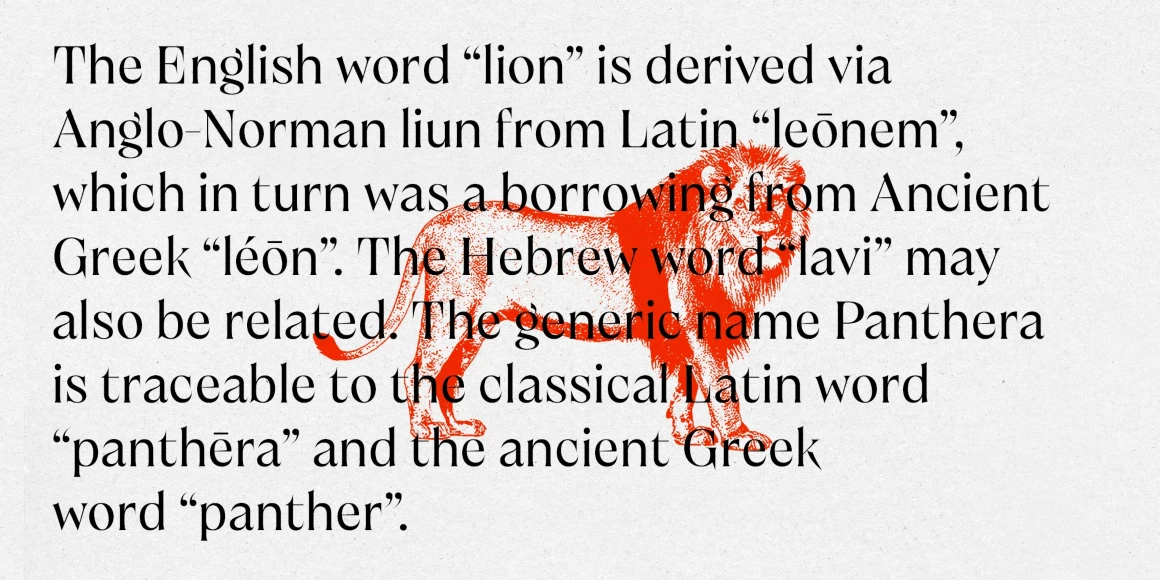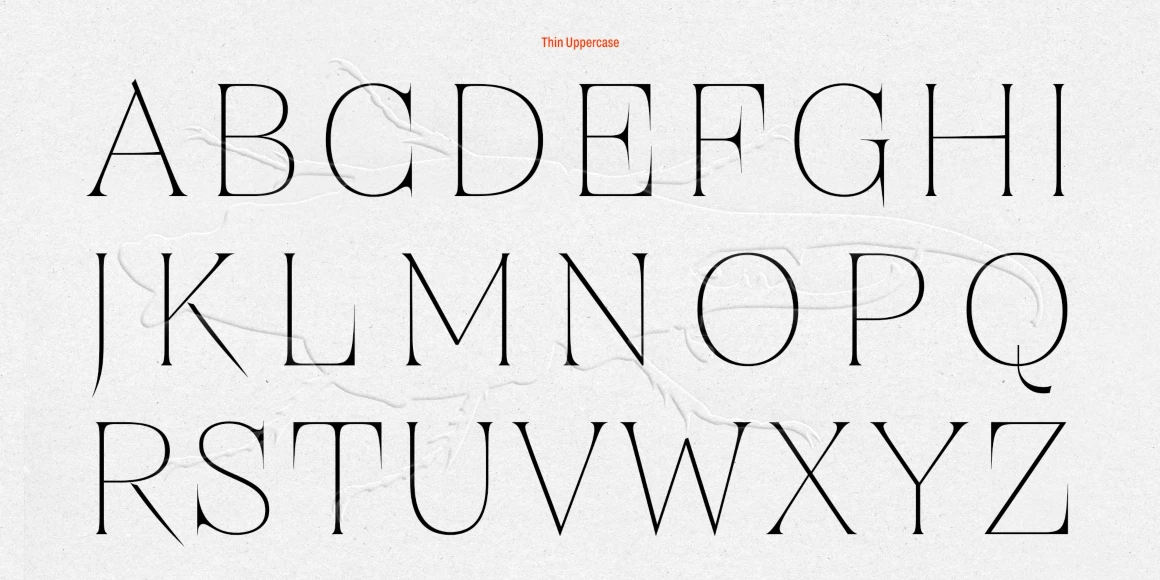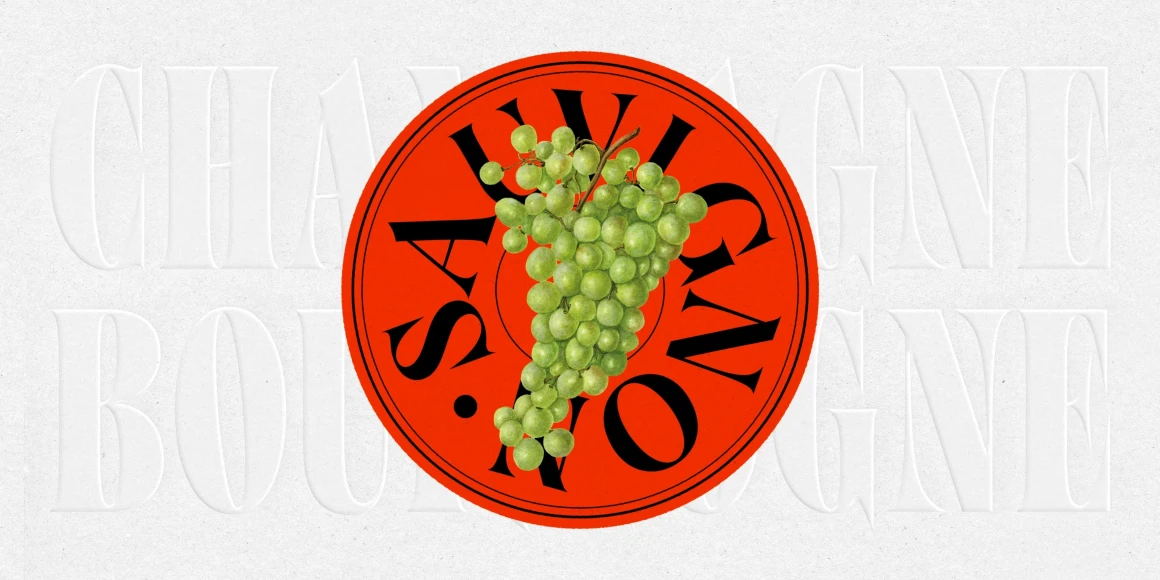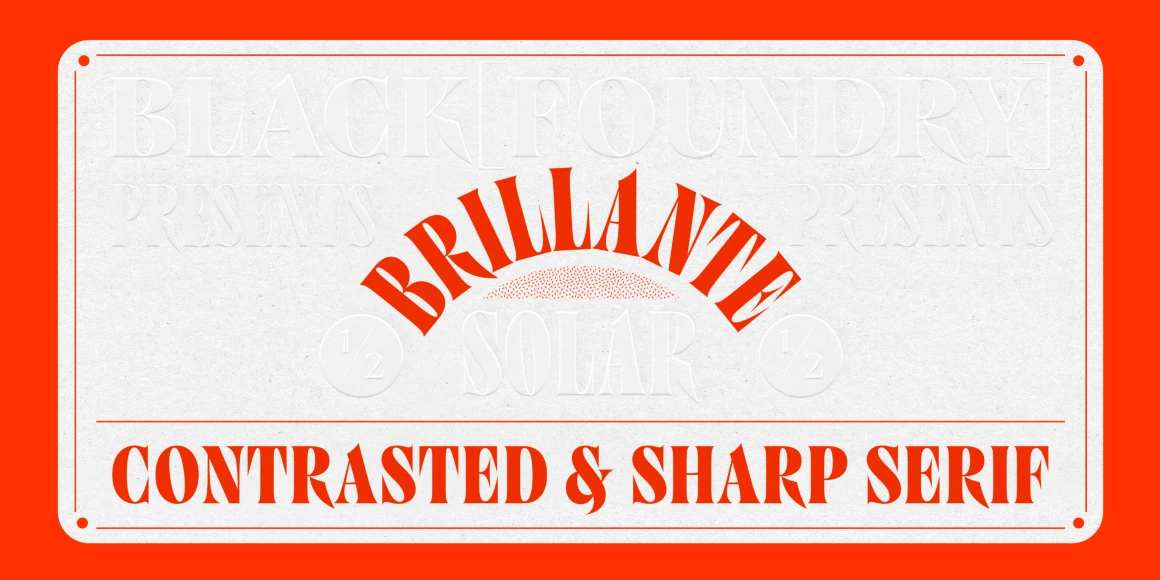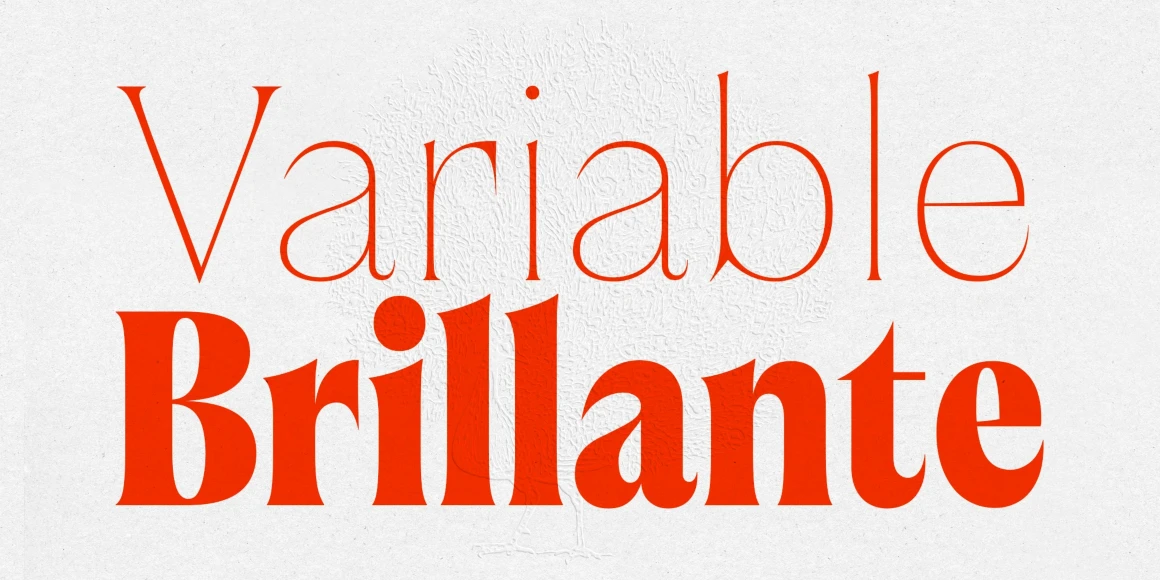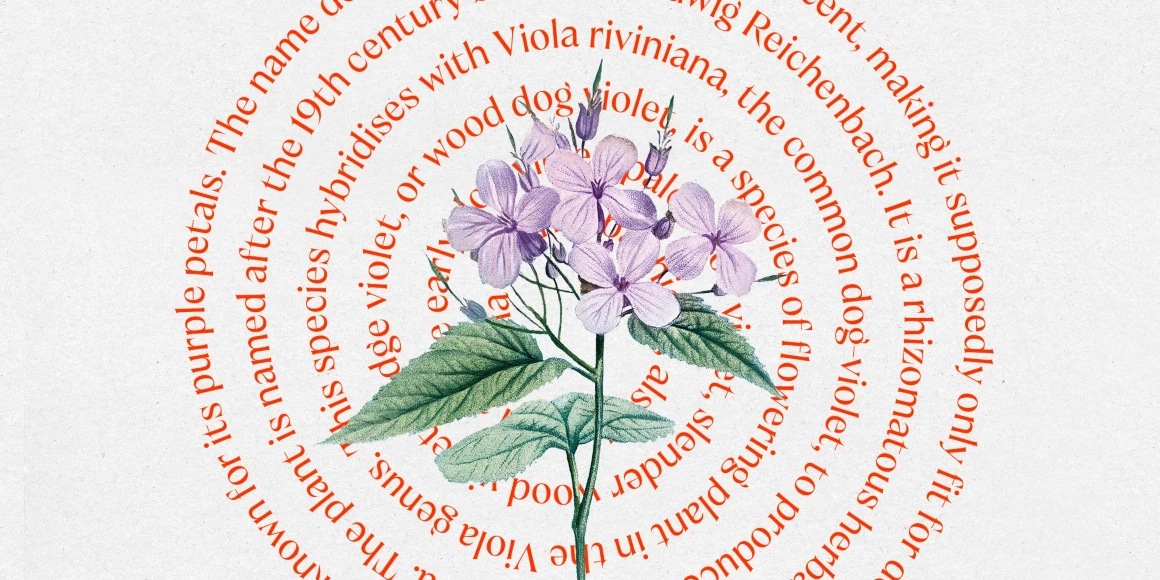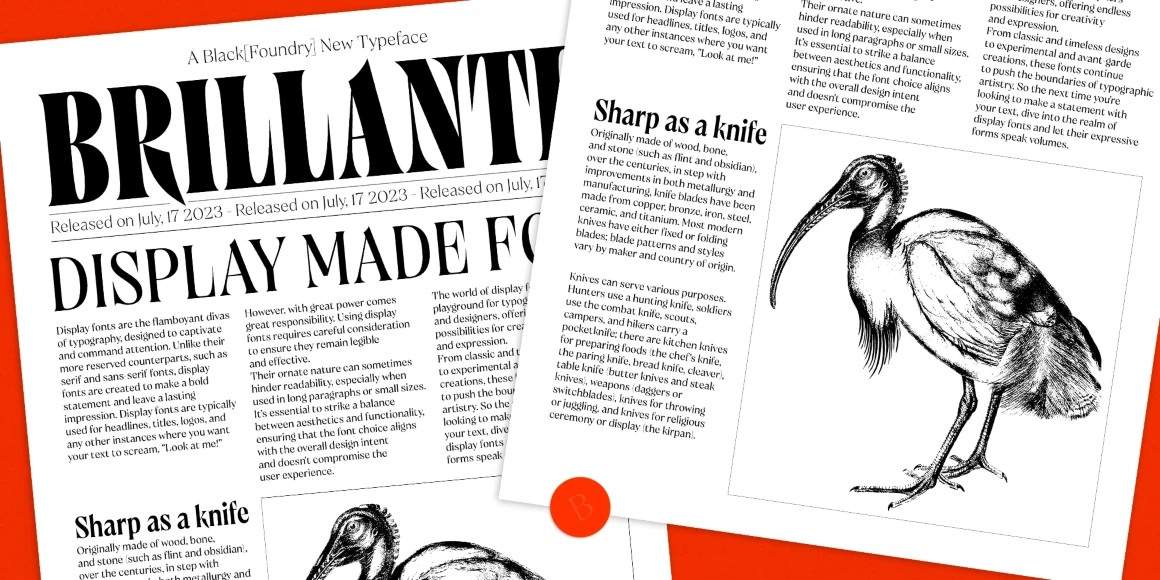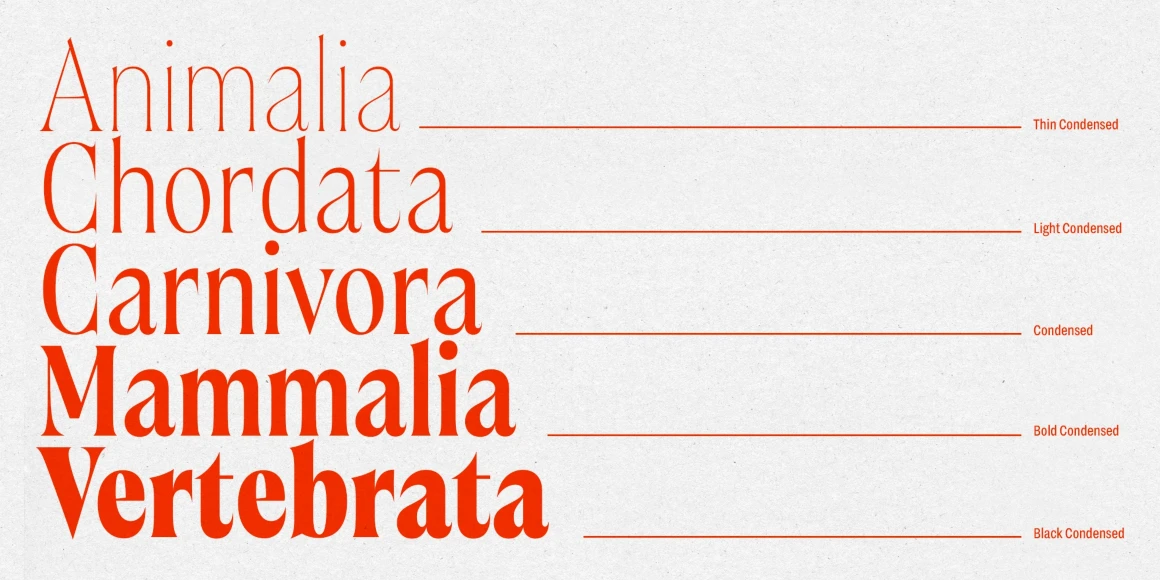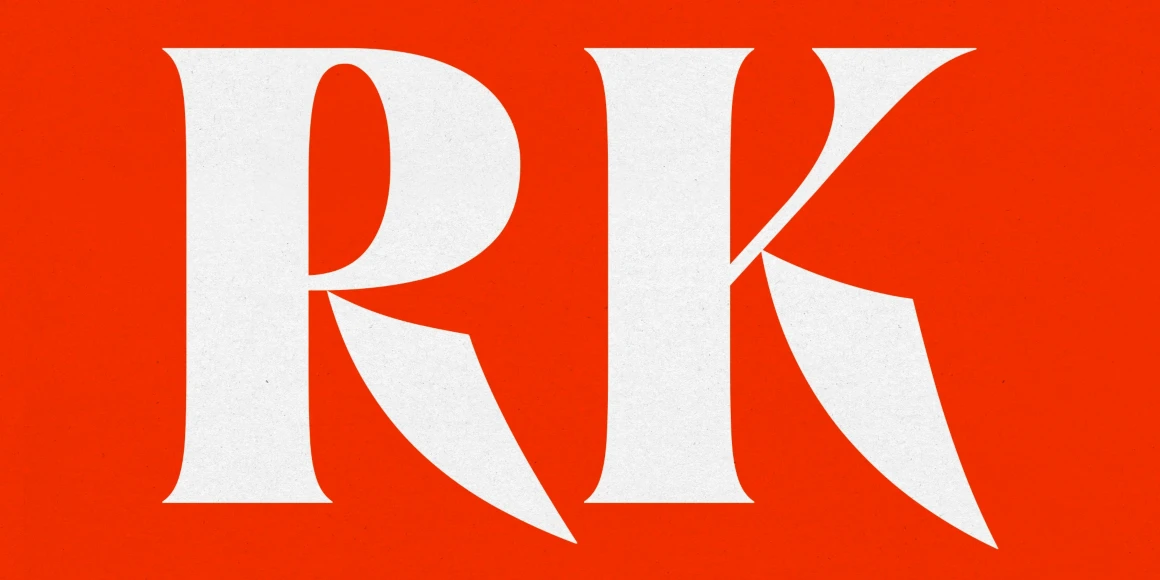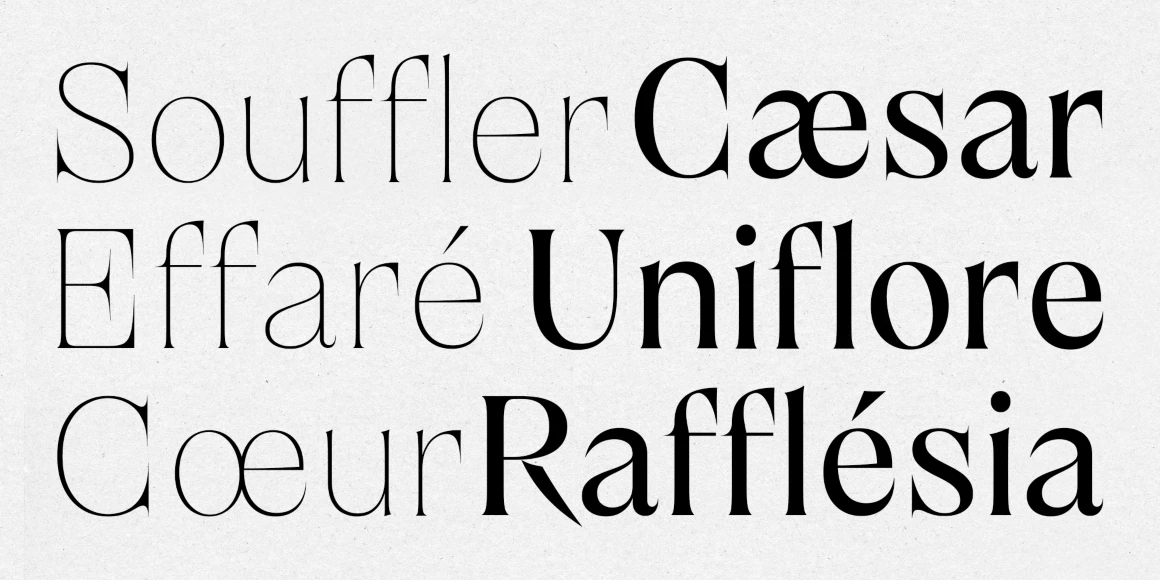
Brillante
By Jérémie Hornus, Solenn Bordeau & Jolana Sýkorová
Brillante is a meticulously crafted high-contrast serif designed to shine in fashion, luxury, and jewelry. Distinctive details such as spiked V and W, thorn-like K and R, sharpened accents, and short serifs give it smart elegance. Tailor-made for titles, branding, editorial, and packaging, Brillante captures sparkle with sophistication. With 15 fonts spanning Thin to Black in Condensed, Normal, and Wide widths, plus a two-axis variable format, it offers exceptional versatility.